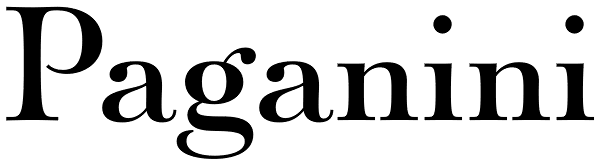
Paganini
Designed in 1928 by Alessandro Butti under the direction of Raffaello Bertieri for the Nebiolo foundry, Paganini defies standard categorization. While it definitely is a classic foundry text face with obvious roots in the "oldstyle" of the Italian...